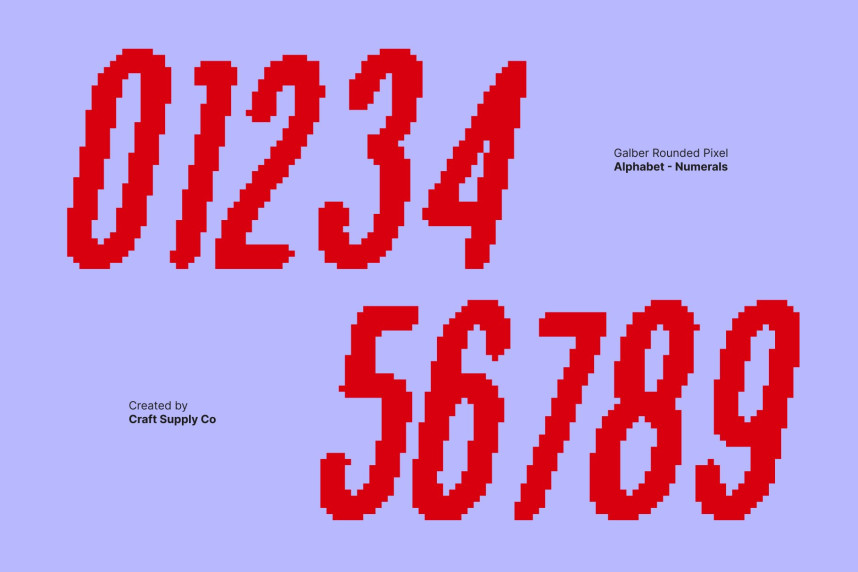
Galber Rounded Pixel Font
Galber Rounded Pixel Font – Condensed Sans Serif with Modern Pixel Charm Clean, Modern Shapes with a Fresh Aesthetic. This is a condensed sans serif font designed to deliver a sleek and contemporary visual presence. Its clean, narrow forms create an efficient and modern look, allowing your designs to feel structured, tidy, and effortlessly stylish. The rounded details soften the overall shape, adding warmth and approachability.